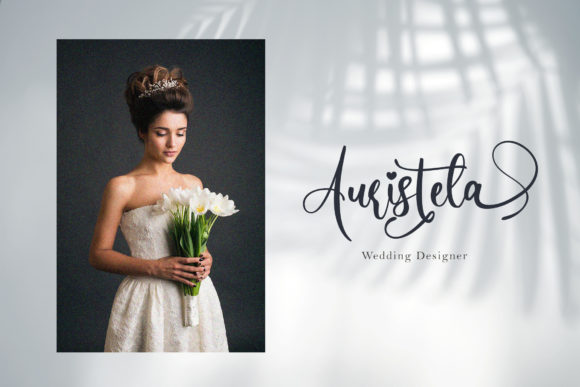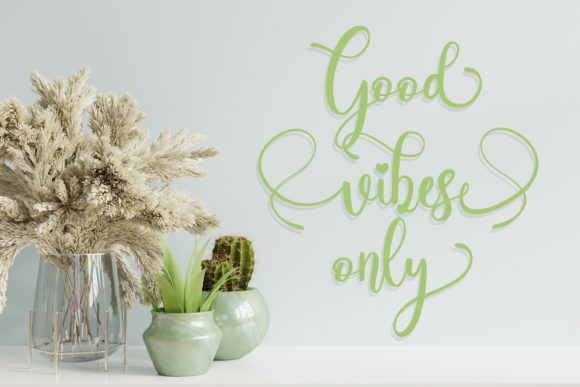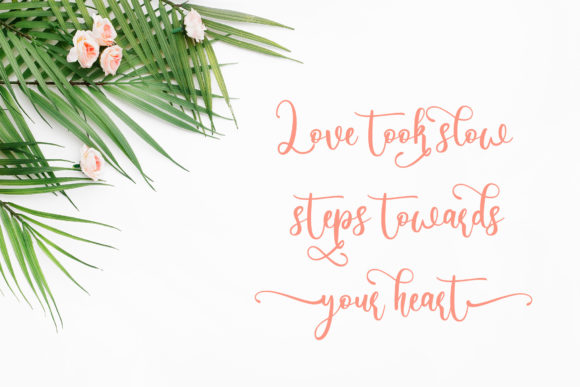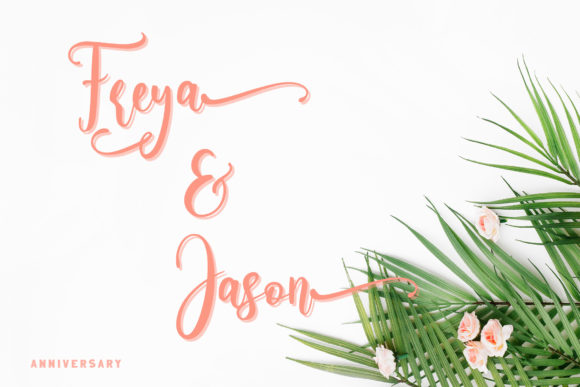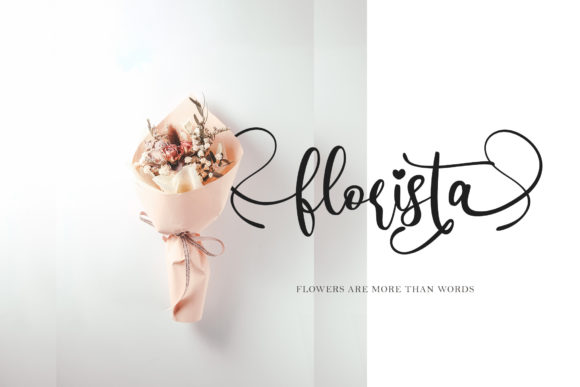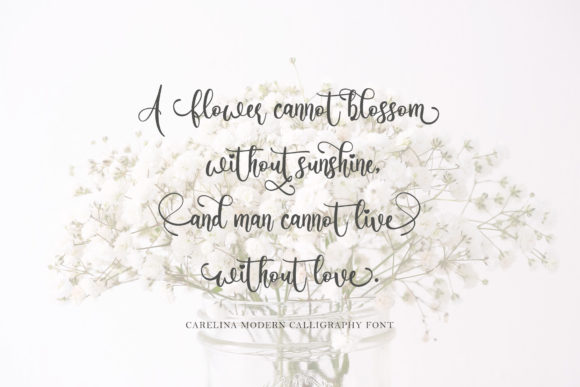
The Magical World of Carelina Font
I’ll never forget the time I was working on a project for a client who wanted a whimsical, handcrafted feel. I spent hours scouring the internet for the perfect font, but nothing seemed quite right. That was until I stumbled upon Carelina Font. Its beautiful, dancing characters and elegant touch instantly captivated me. I knew right then and there that it was the perfect fit for my project.
A Personal Review of Carelina Font
So, what makes Carelina Font so special? Let’s dive into the good stuff! 😊
- ✨ Beautiful handwritten script: Carelina Font has a unique, magical quality that adds a touch of whimsy to any design.
- ✅ Ease of use: This font is PUA encoded, making it easy to access all the glyphs and swashes.
- 💫 Casual yet elegant: Carelina Font strikes the perfect balance between casual and elegant, making it suitable for a wide range of design projects.
- 🎨 Versatility: This font can be used for everything from branding and packaging to invitations and crafts.
While Carelina Font is an amazing font, there are a few things to keep in mind:
One of the standout features of Carelina Font is its OpenType features and glyphs. Here’s how to make the most of them:
- Stylistic alternates: Carelina Font offers a range of stylistic alternates that can be used to add visual interest to your design.
- Swashes: The font includes a range of swashes that can be used to add a touch of elegance to your design.
- Glyphs: Carelina Font includes a range of glyphs that can be used to add visual interest to your design.
The Story Behind Carelina Font
While the true story behind Carelina Font may be unknown, it’s easy to imagine that it was created by a designer who loves handwritten scripts and wants to bring a touch of magic to the world of typography.
Q: What is Carelina Font?
A: Carelina Font is a beautiful, handwritten font that’s perfect for designs that need a touch of whimsy and elegance.
Q: Is Carelina Font PUA encoded?
A: Yes, Carelina Font is PUA encoded, making it easy to access all the glyphs and swashes.